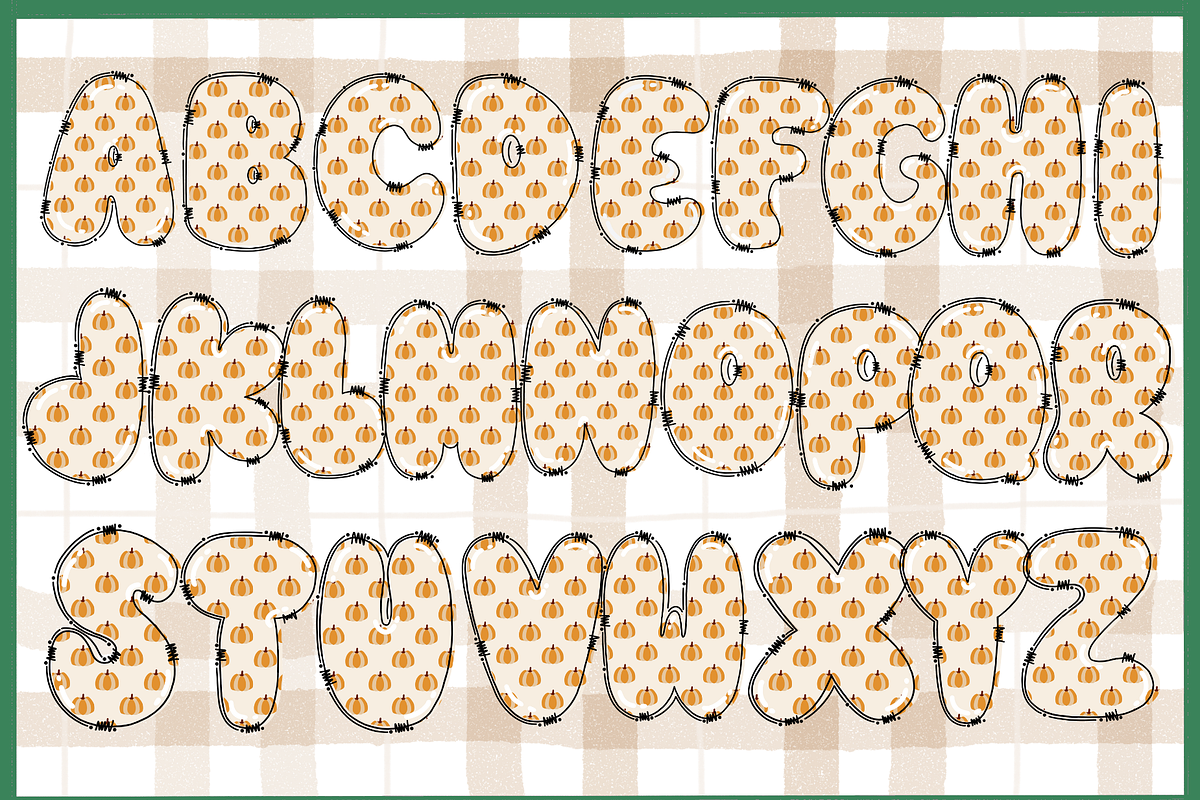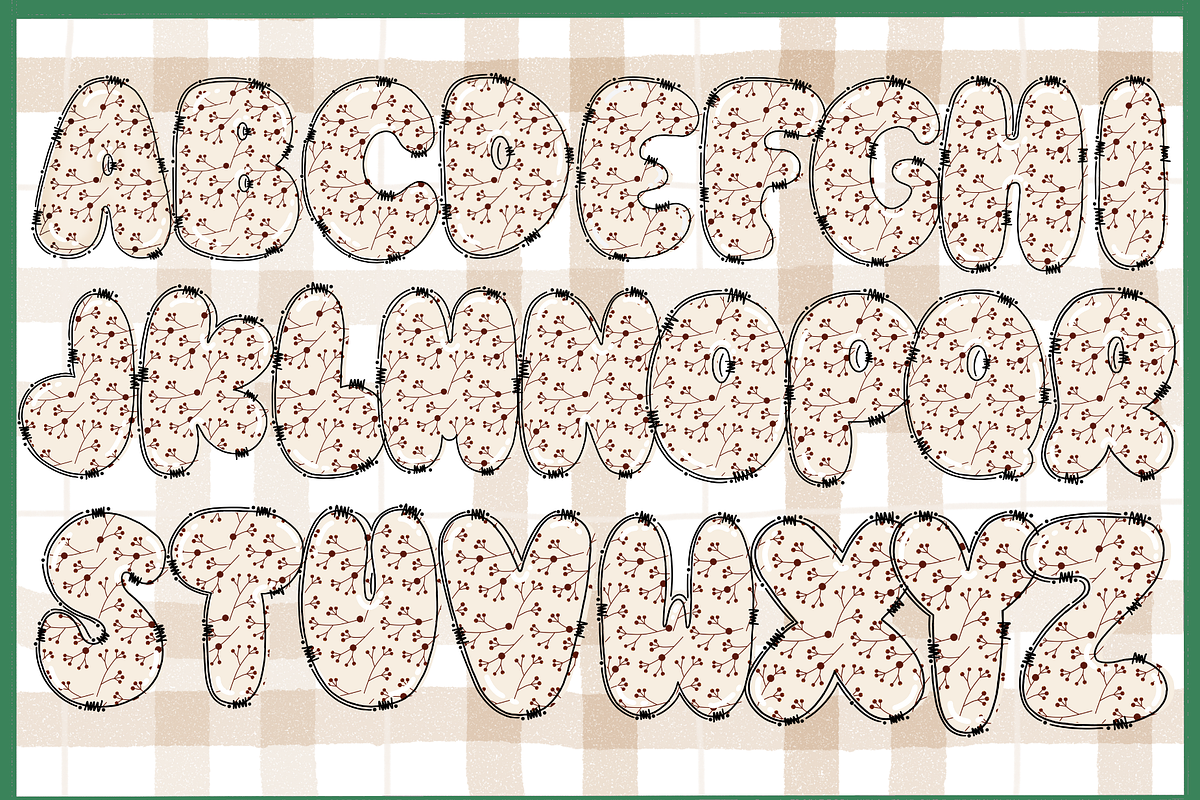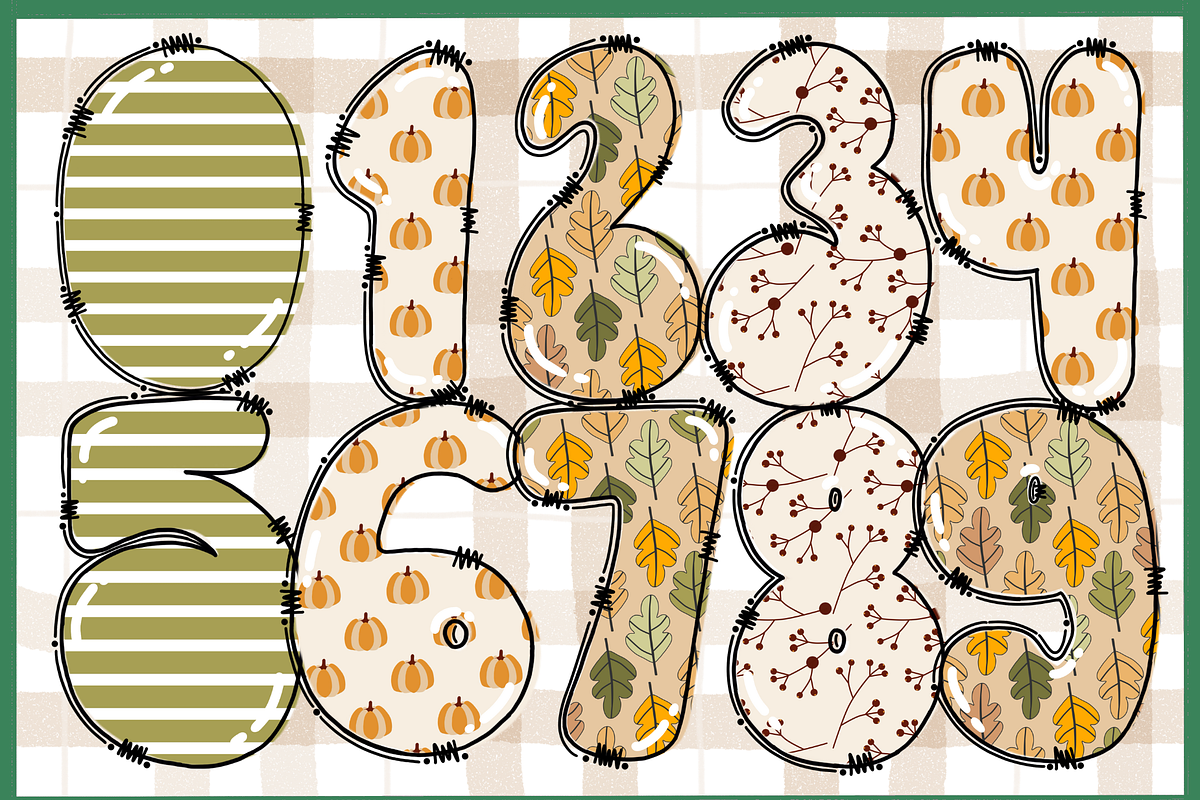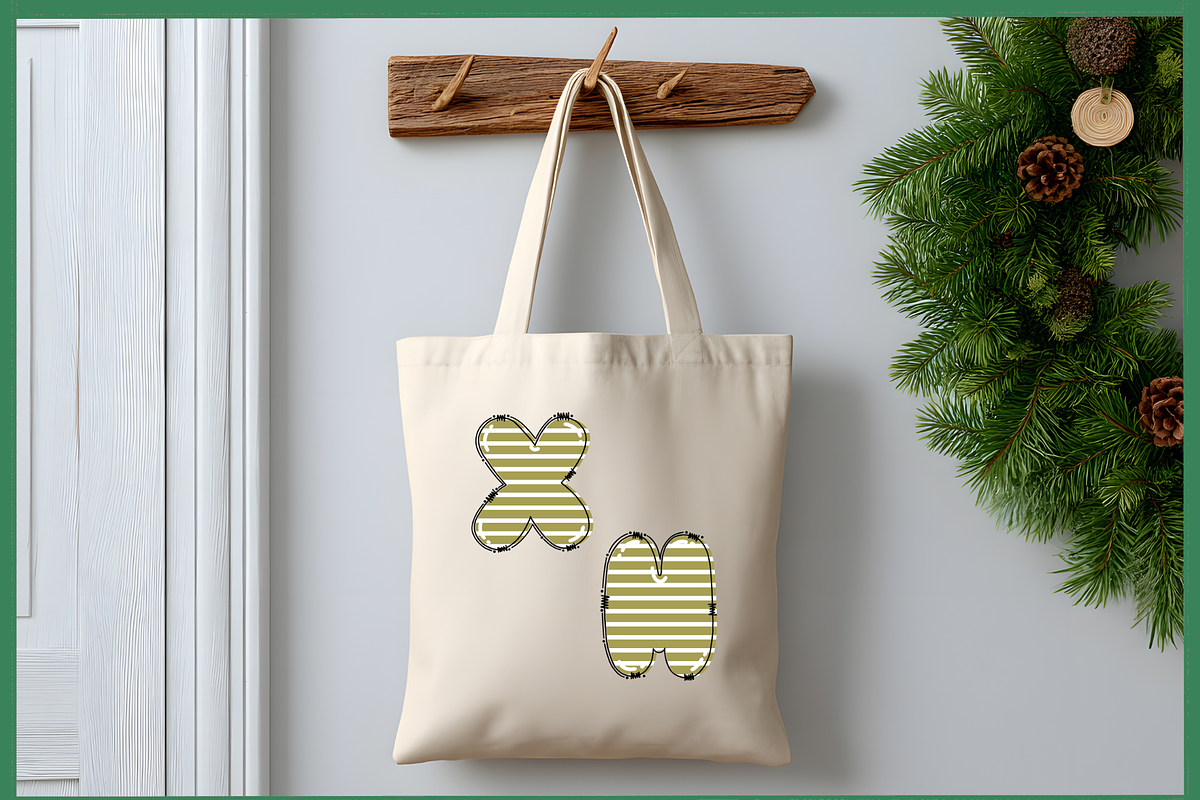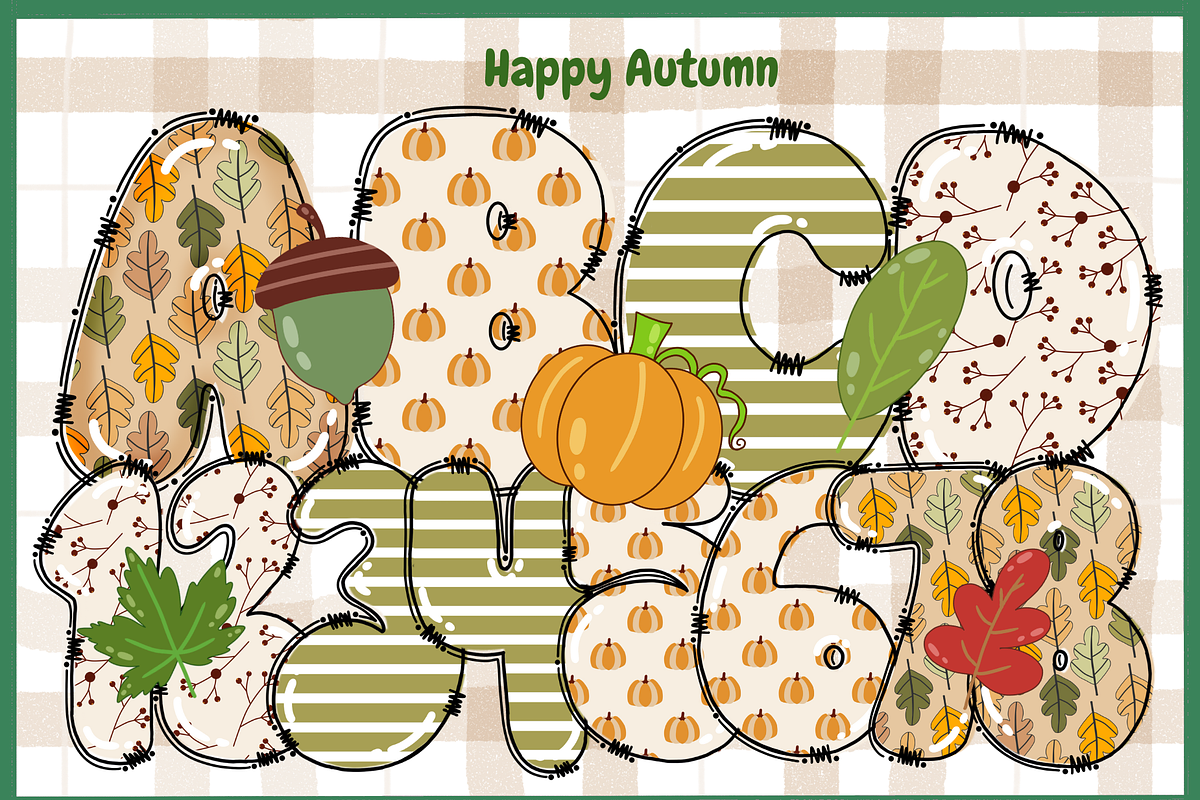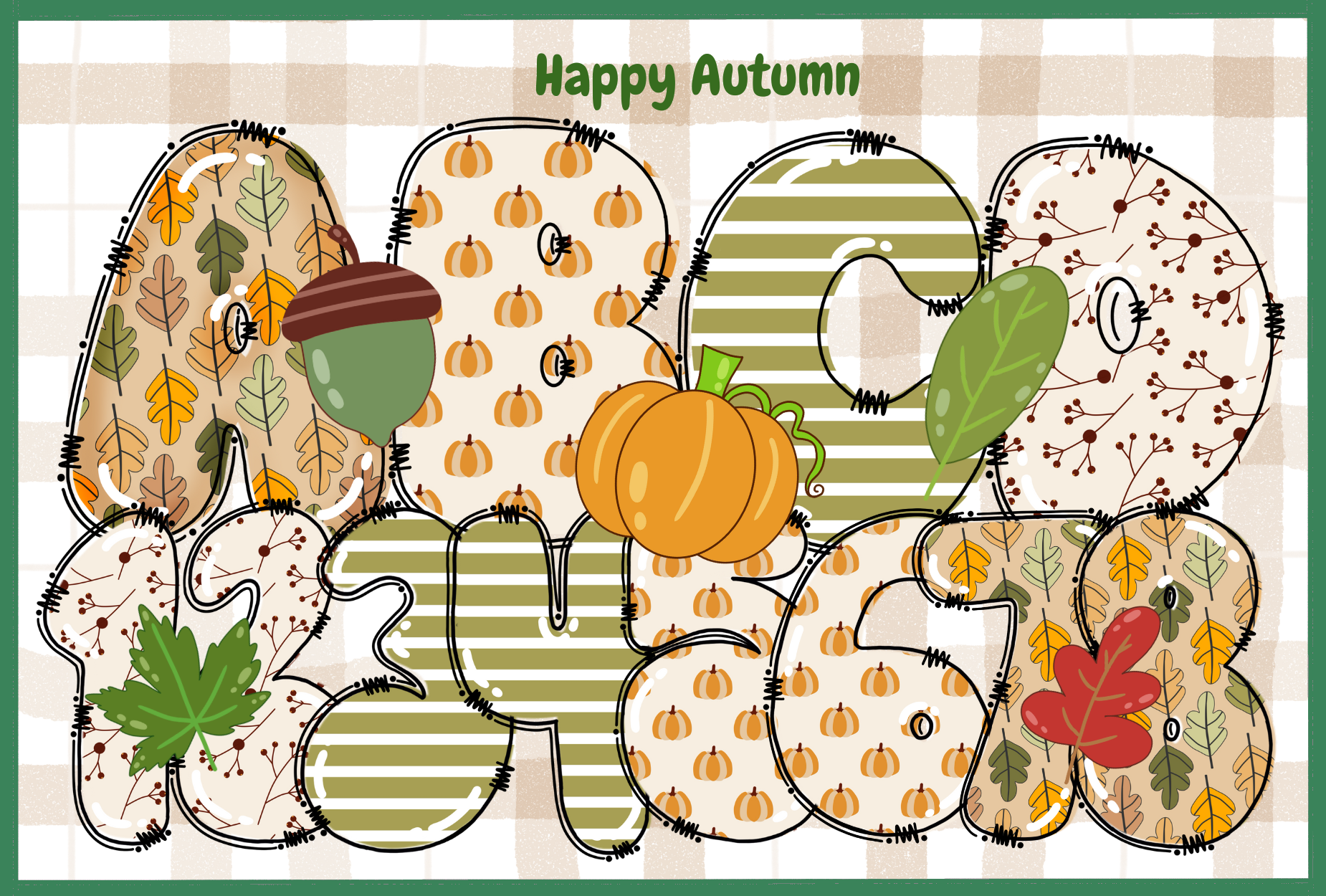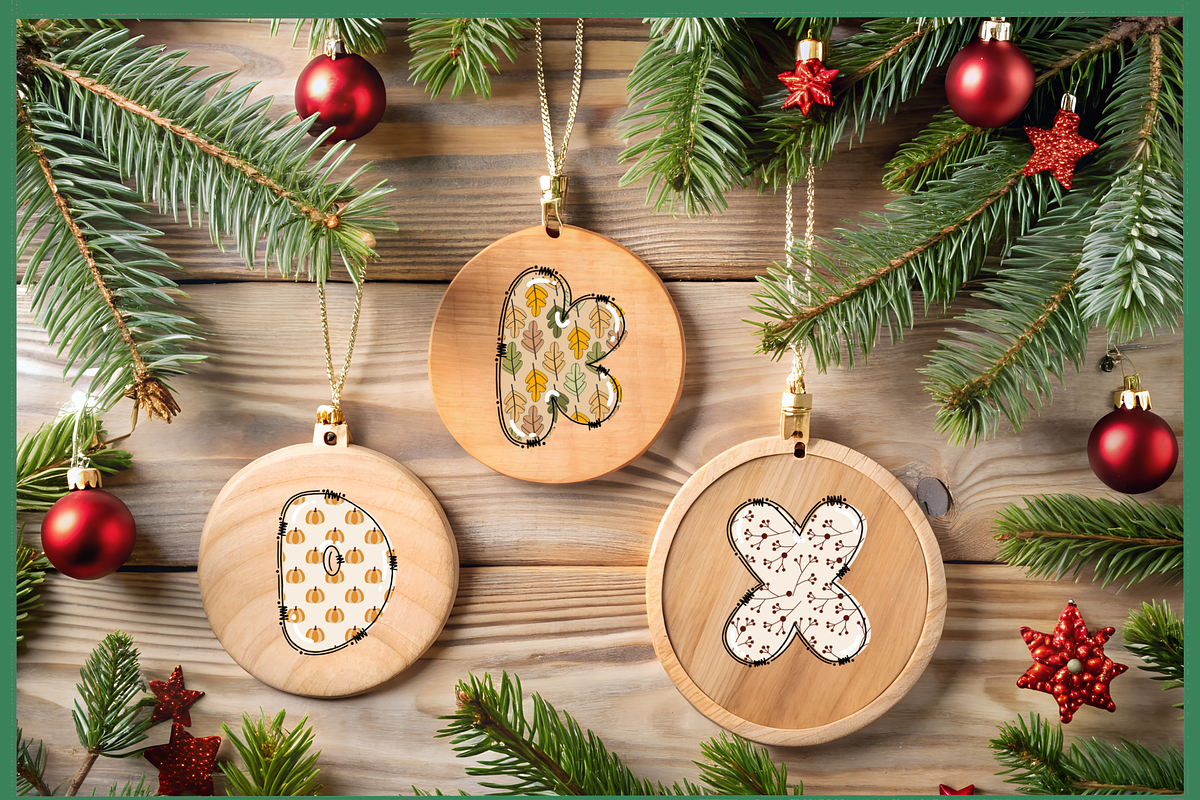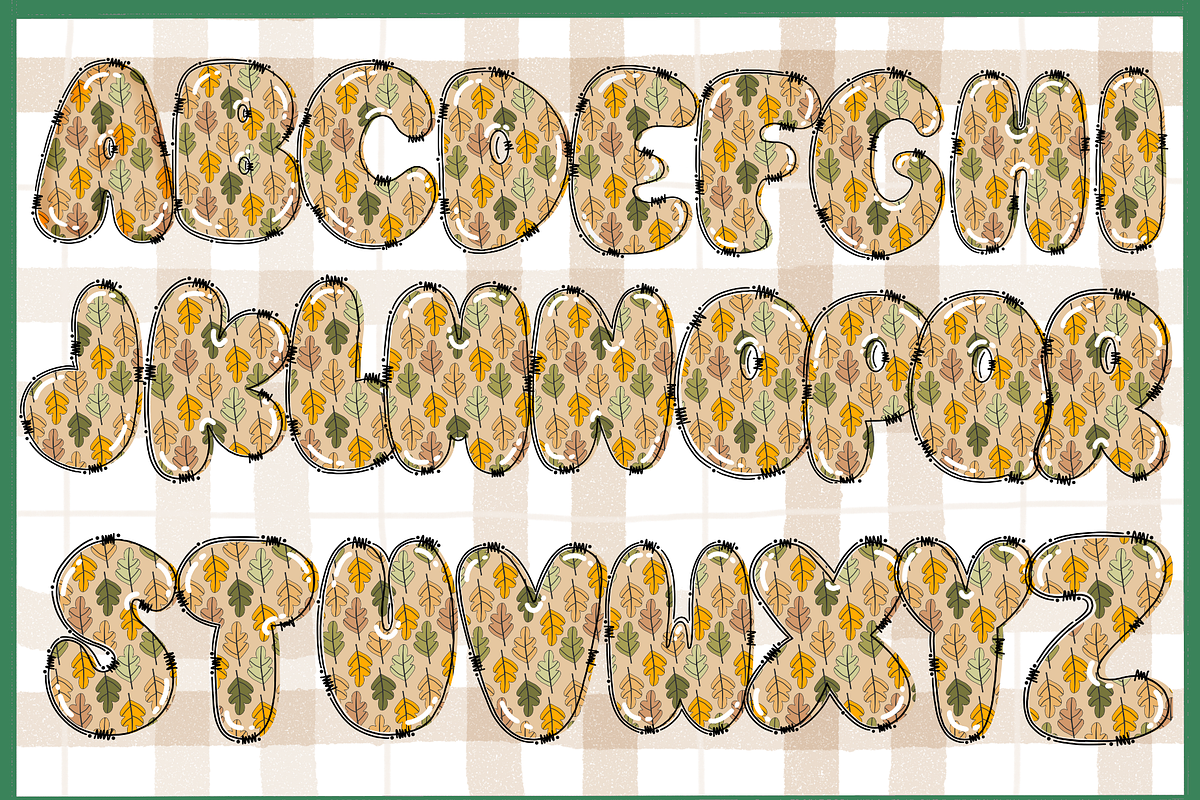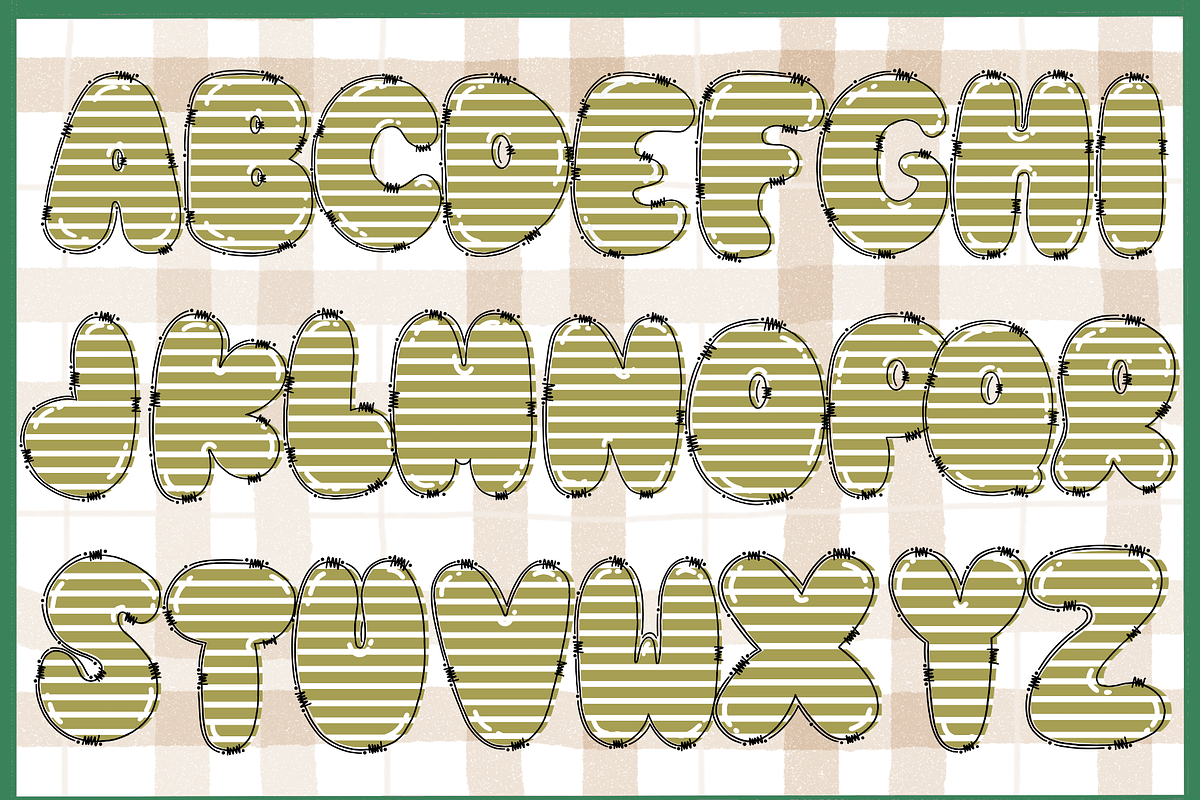
Happy Autumn-PNG fonts
Happy Autumn Font Happy Autumn is a cute and colorful display font. It embodies playfulness and authenticity and is the perfect choice for any children activity or school project. Add this chunky lettered font to your designs and notice how it makes them come alive!